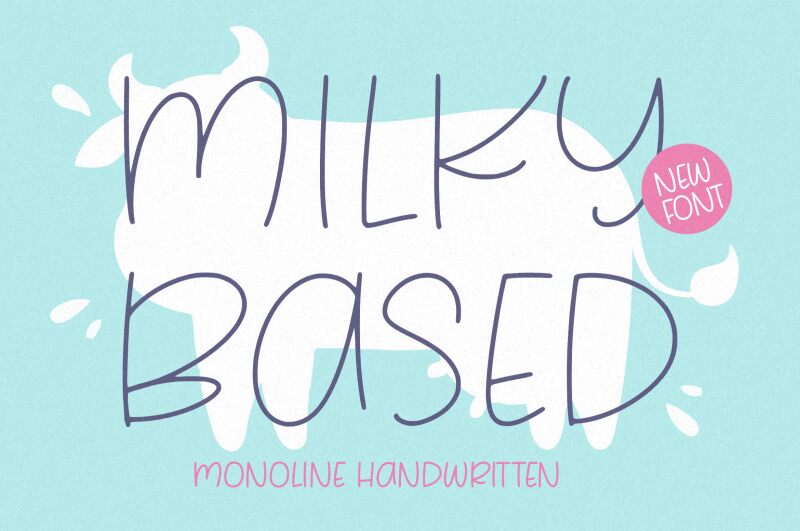
Milky Based
Milky Based font, crafted by Balpirick Studio, exudes a charming and whimsical character through its handwritten style. This light font showcases delightful curves and playful gestures, giving each letter a unique personality that resonates with warmth and creativity. Its airy design breathes life into various text applications, making it ideal for projects that aim to evoke a sense of friendliness and approachability.
The enchanting flow of Milky Based makes it perfect for invitations, branding materials, or expressive social media graphics. Whether used in a personal blog or as part of a vibrant promotional campaign, this font captures attention while maintaining an effortless elegance that can elevate any design project. Experience the inviting allure of Milky Based as it seamlessly combines functionality with artistic flair.